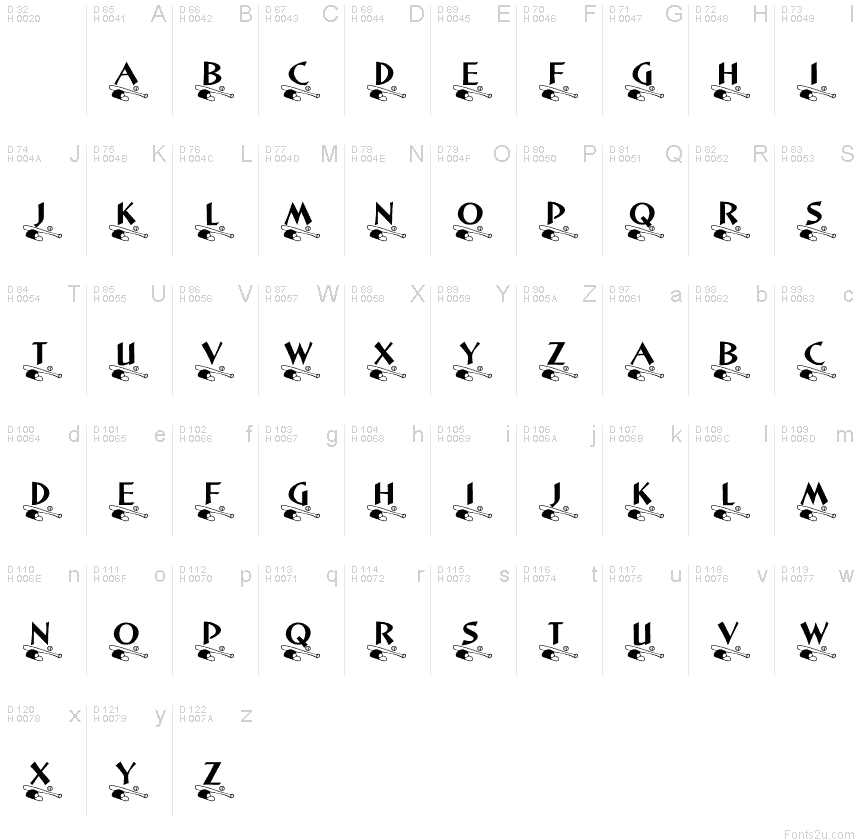
KR Little League
KR Little League font by Katsfunfonts is a free decorative display typeface with a baseball-themed layout, where each tall letter is paired with a bat and ball for a clear field-side identity. The alphabet sample feels custom-built for sports graphics rather than general text, and the graphic details do most of the visual work.
KR Little League works well for little league posters, team banners, youth camp flyers, jersey mockups, and clubhouse signage because the theme is immediate and easy to read at a glance. This free font also fits event invites, scoreboards, and playful headlines when you want the design to point straight to baseball without adding extra decoration.